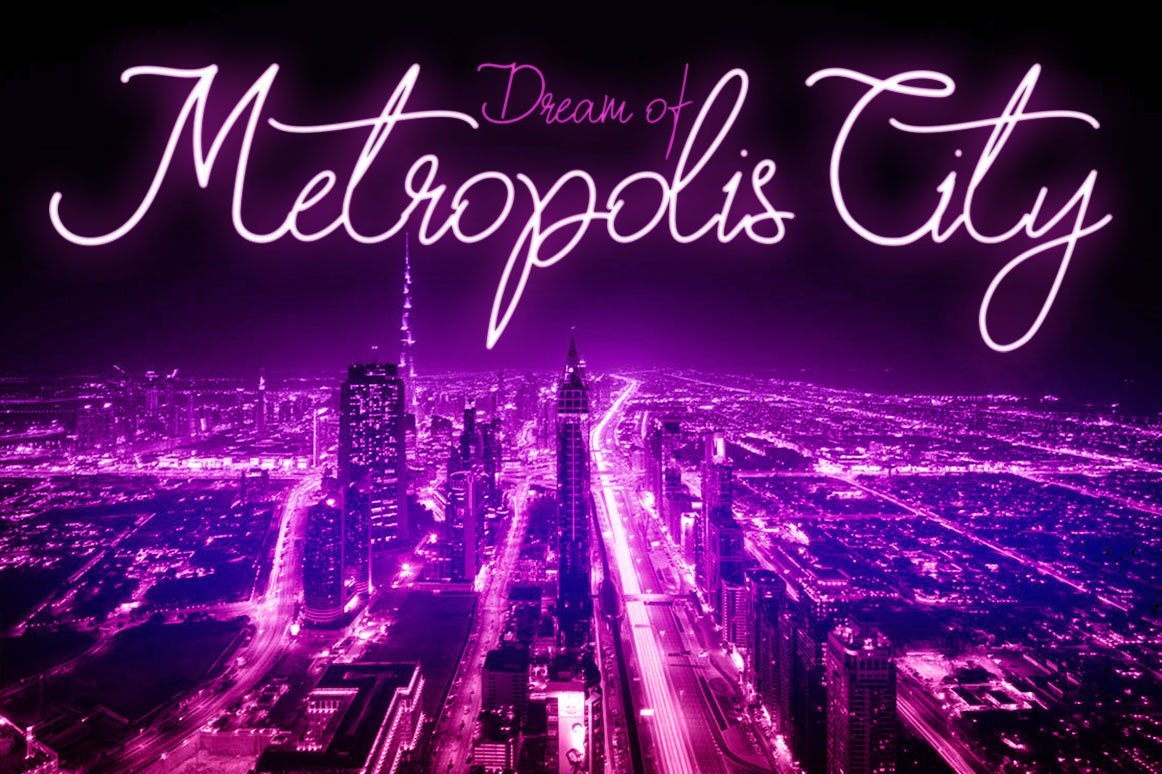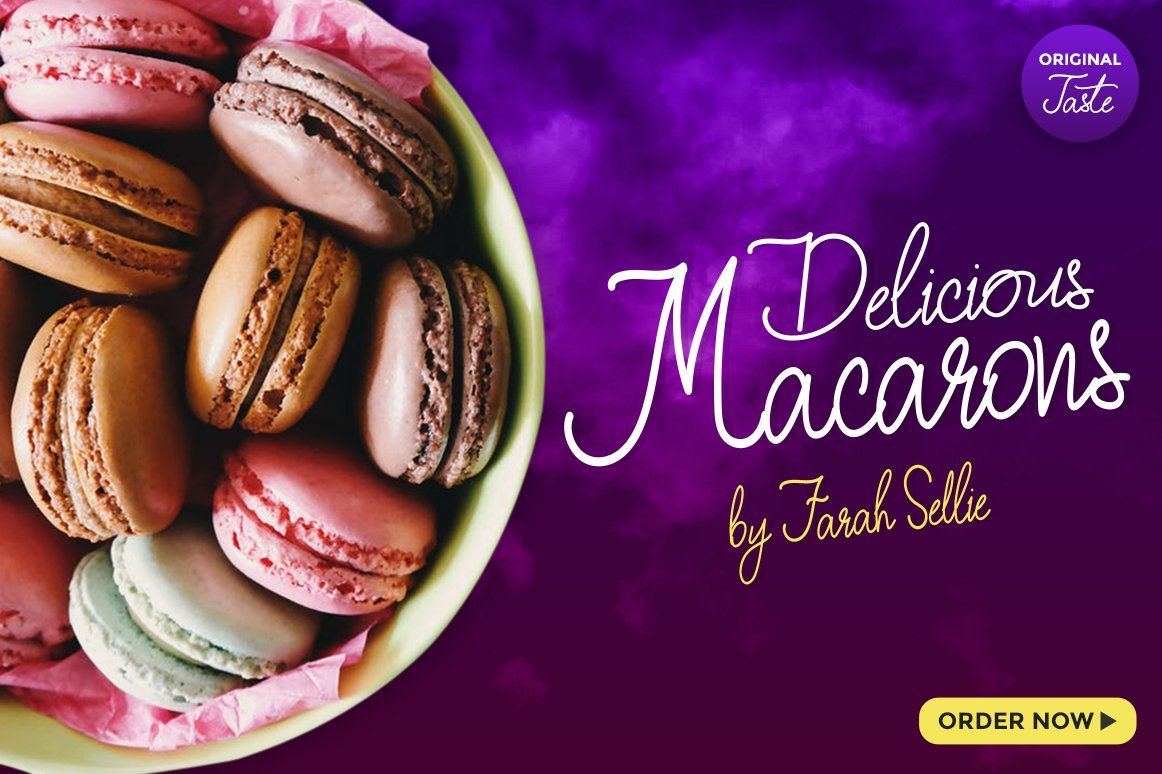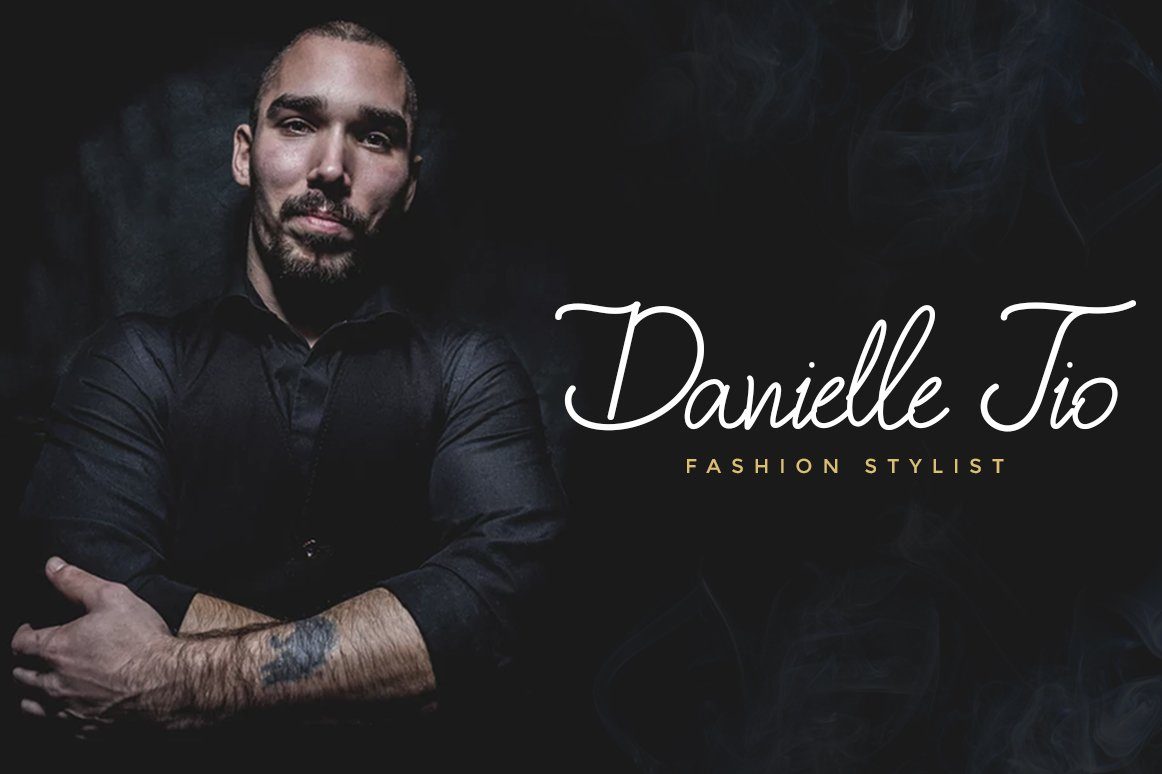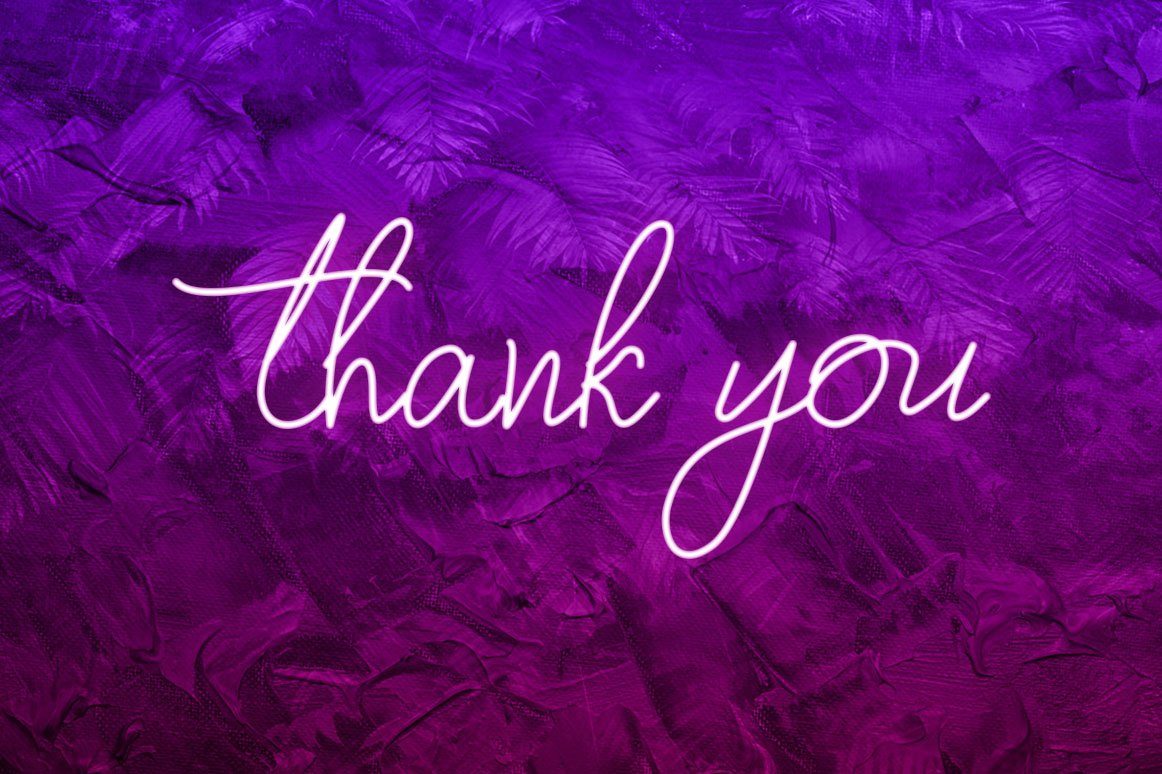
About Fiona Lattina Script
Introducing Fiona Lattina – A Beautiful Handwritten Font. Made with naturally handwritten and modern style, it brings beautiful and modern typeface. This font is suitable to use as a logo & branding, photography, watermark, social media posts, advertisements, invitation, product designs, label, stationery, wedding designs, product packaging or anything that needs handwriting taste. What’s Included : Ton of glyphs (include Uppercase, Lowercase, LigatureNumerals & Punctuations) Works on PC & Mac Simple installations Accessible in the Adobe Illustrator, Adobe Photoshop, Adobe InDesign, even work on Microsoft Word. PUA Encoded Characters – Fully accessible without additional design software. Fonts include Multilingual Support We hope you enjoy the font. Thank You